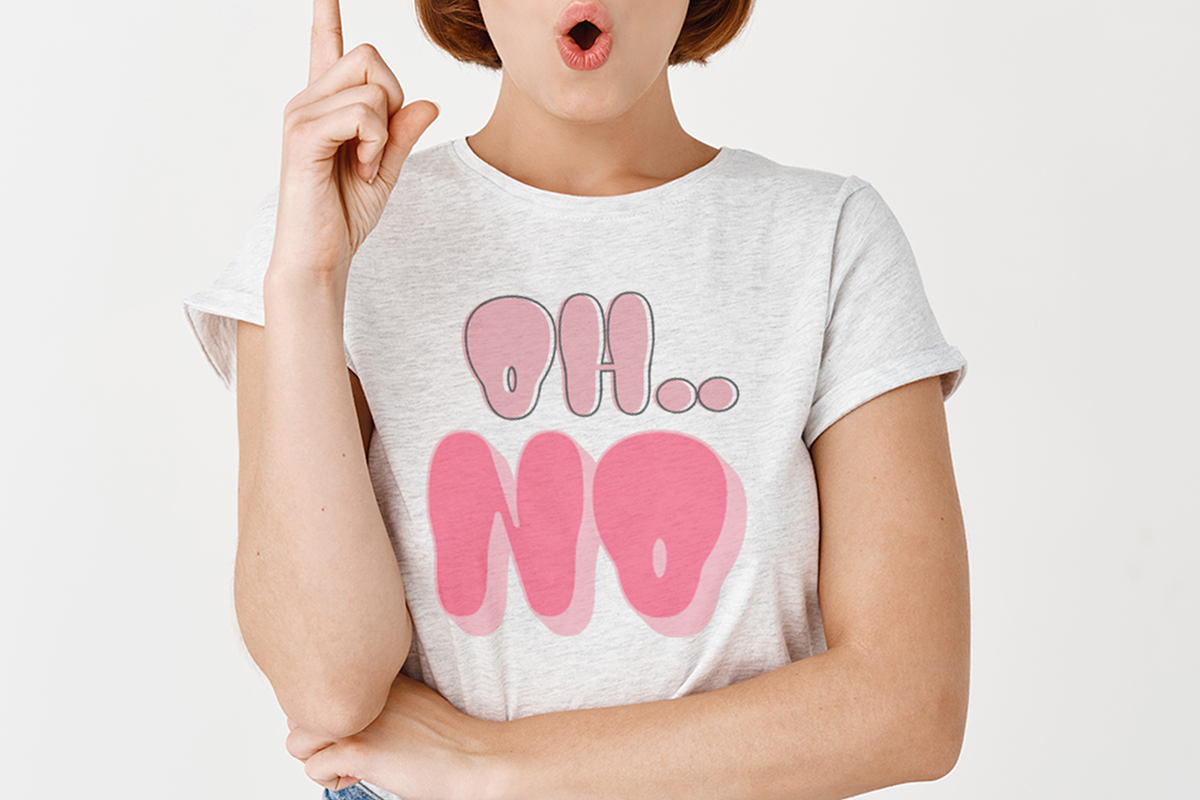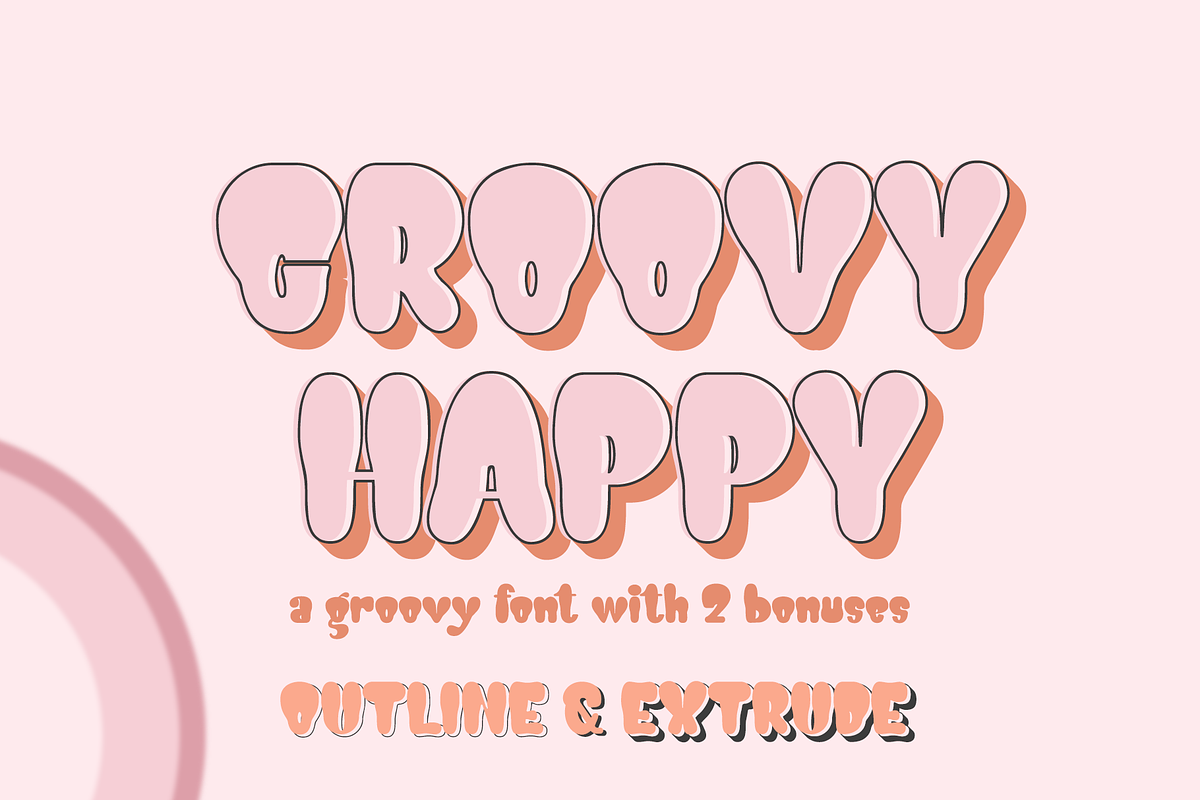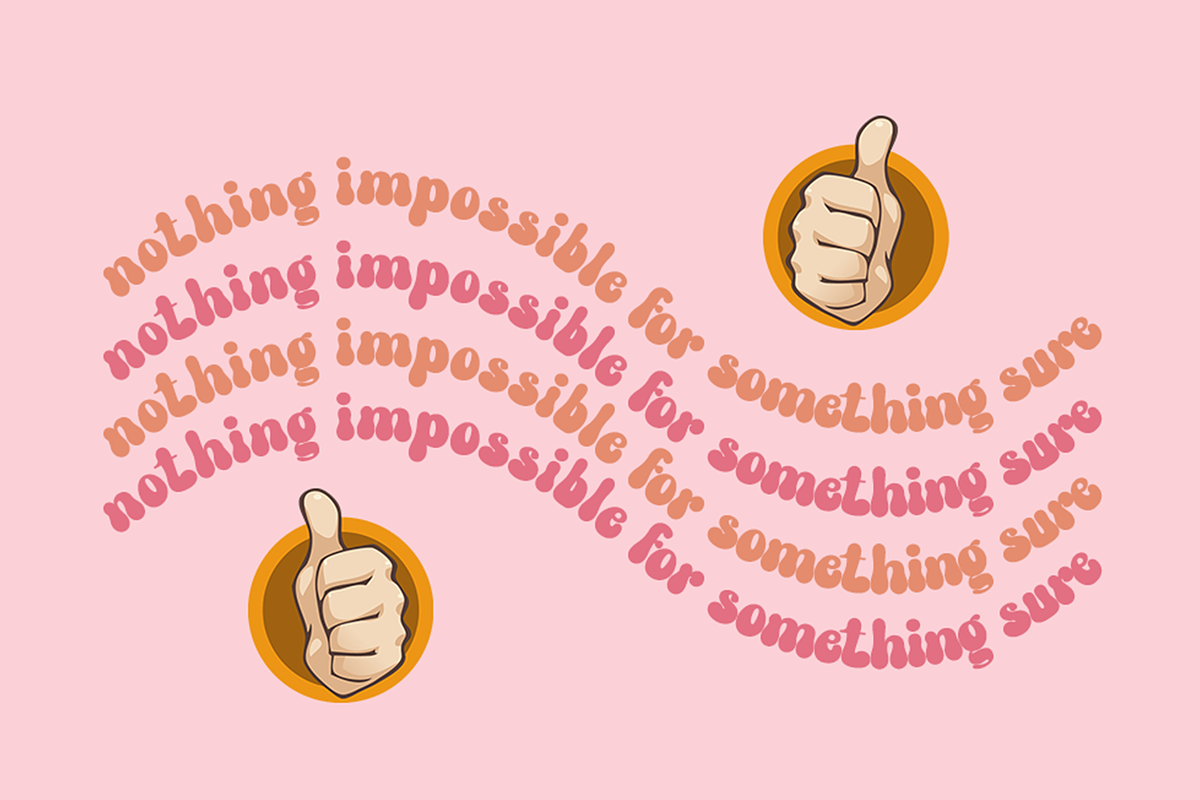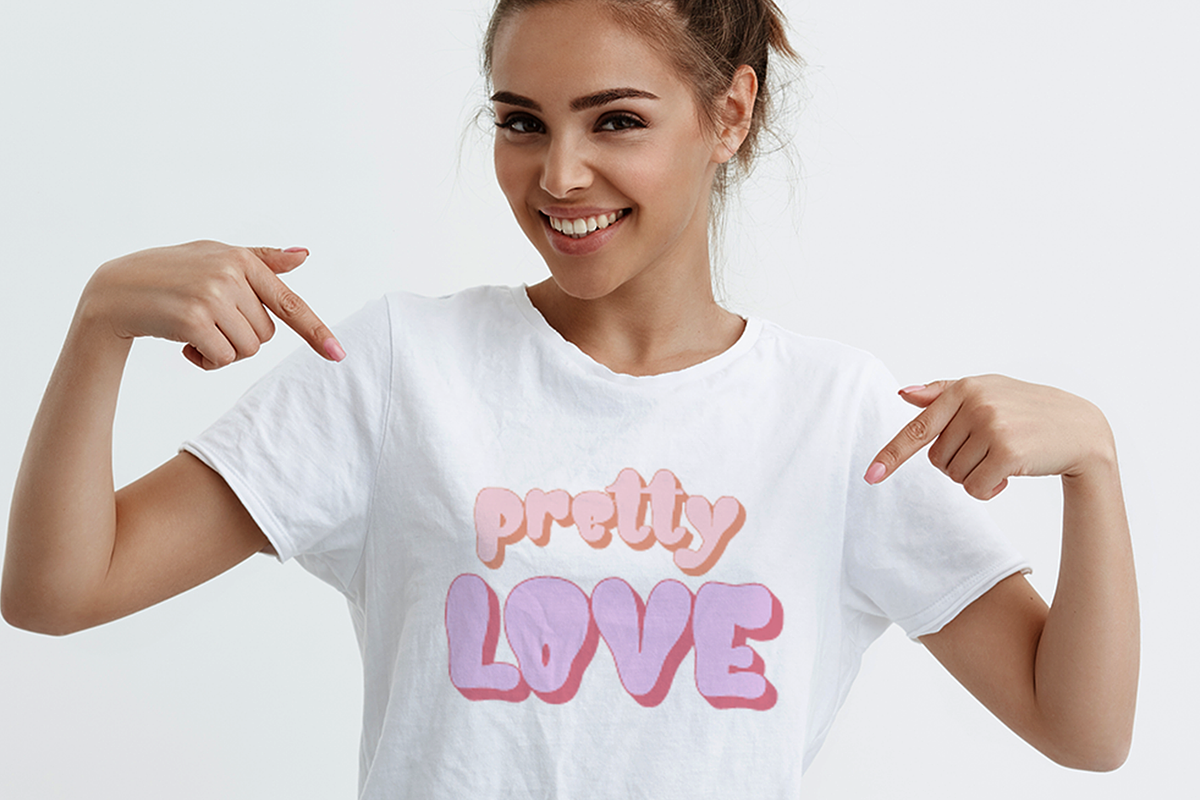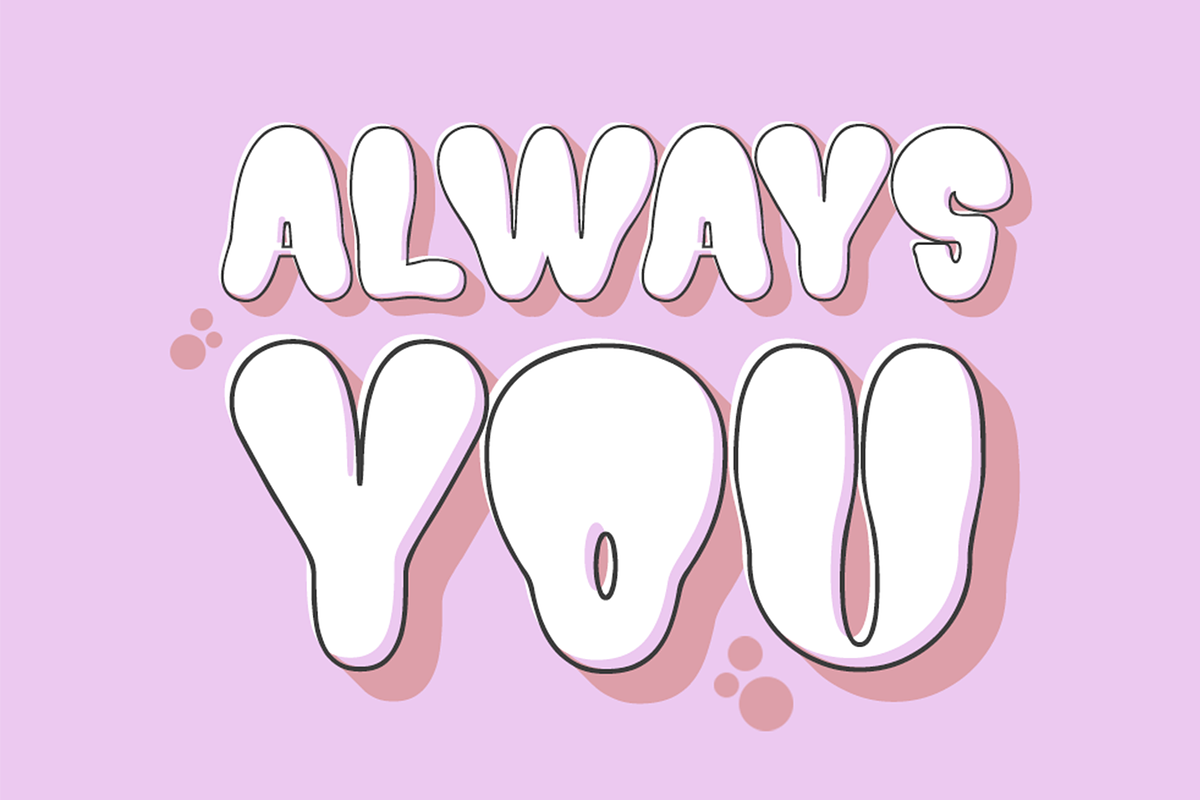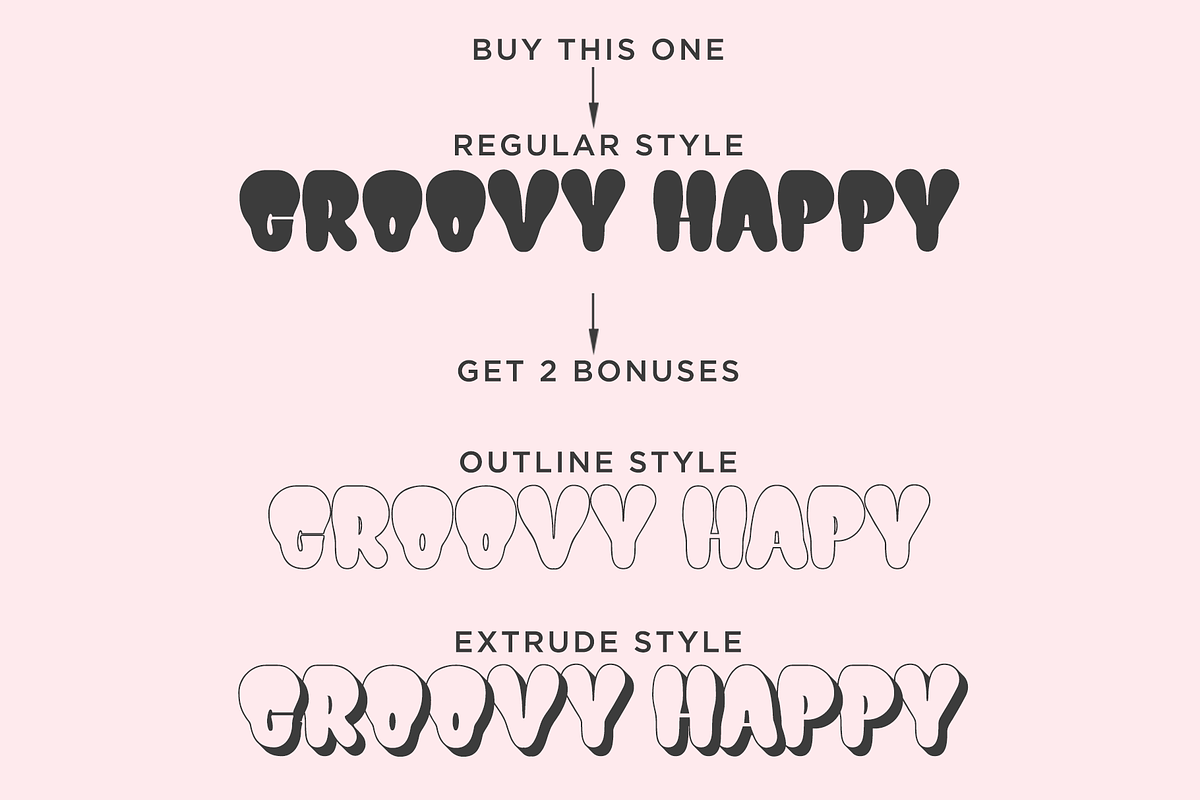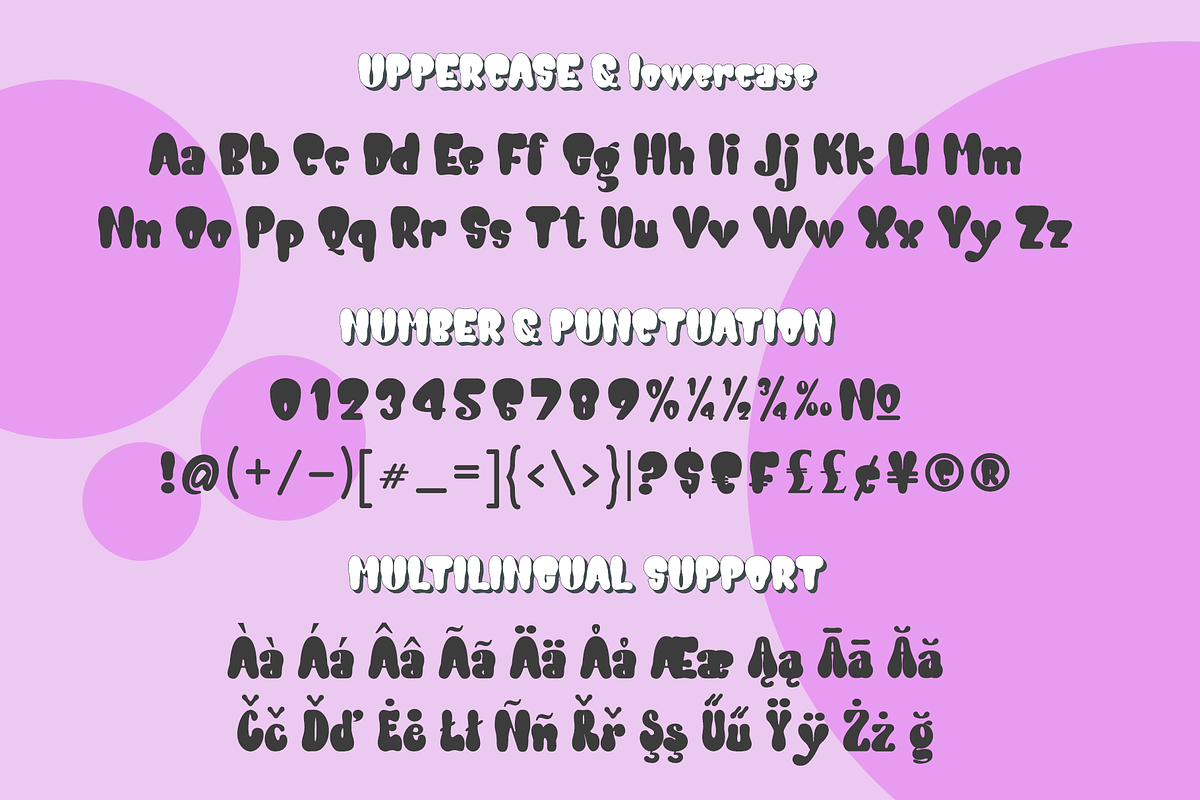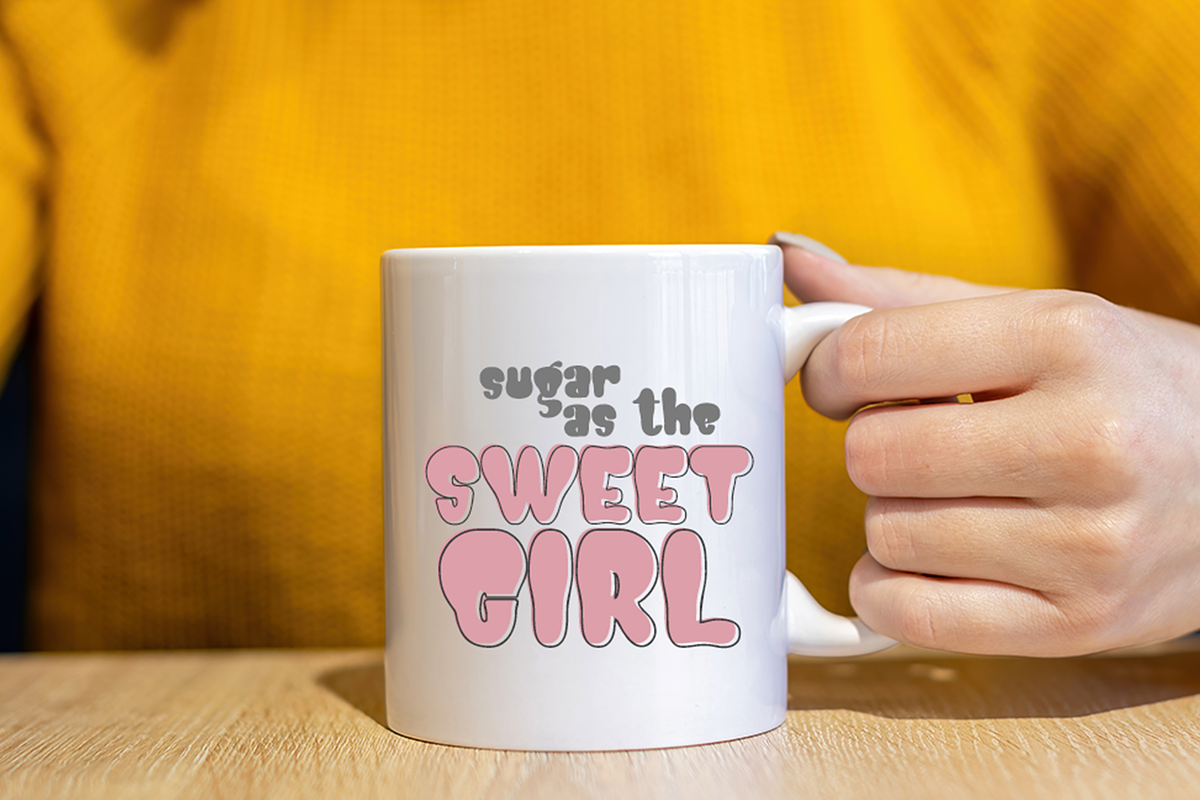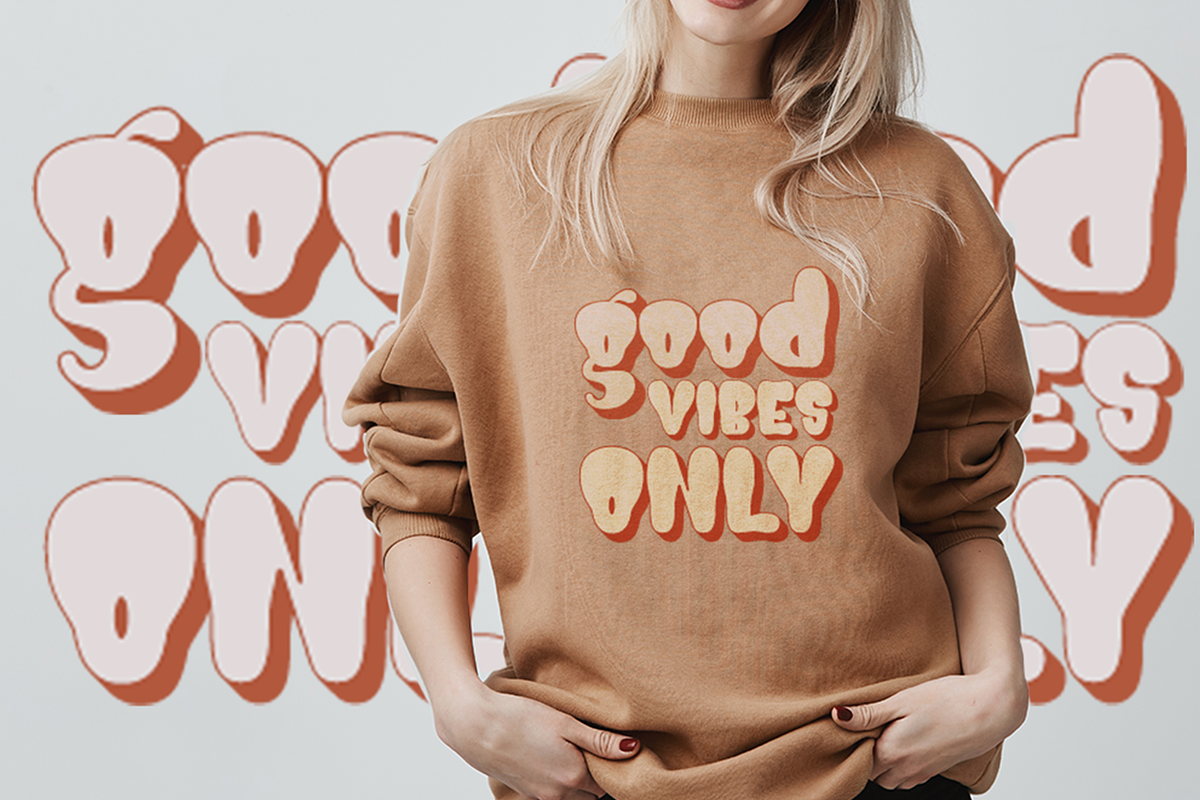
GROOVY HAPPY - Haksen
GROOVY HAPPY FONT A hand-drawn, bubbly font with a groovy look!
There are three fonts included :
- Outline
- Extrude.
You can use these three fonts to create your own retro quotes and words!
- Regular version
- Character set A-Z in uppercase and lowercase
- Accented Characters
- Multiple Languages Supported